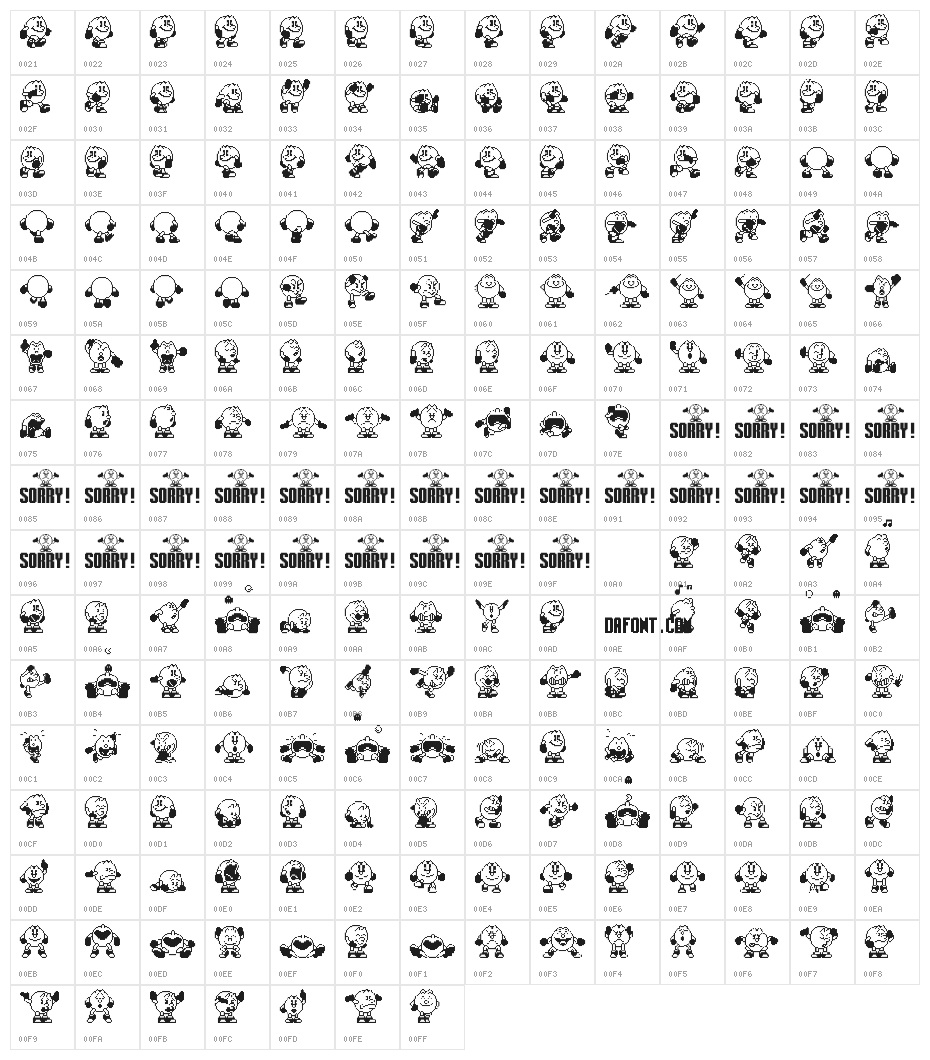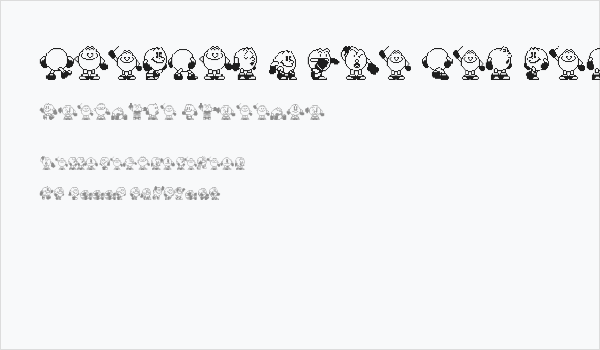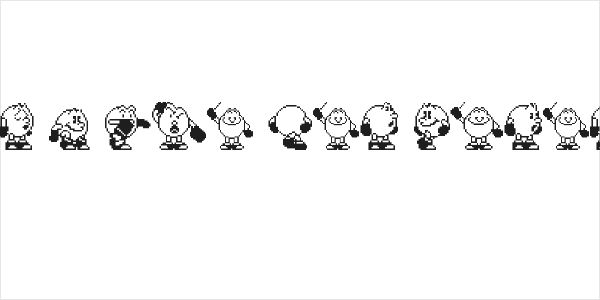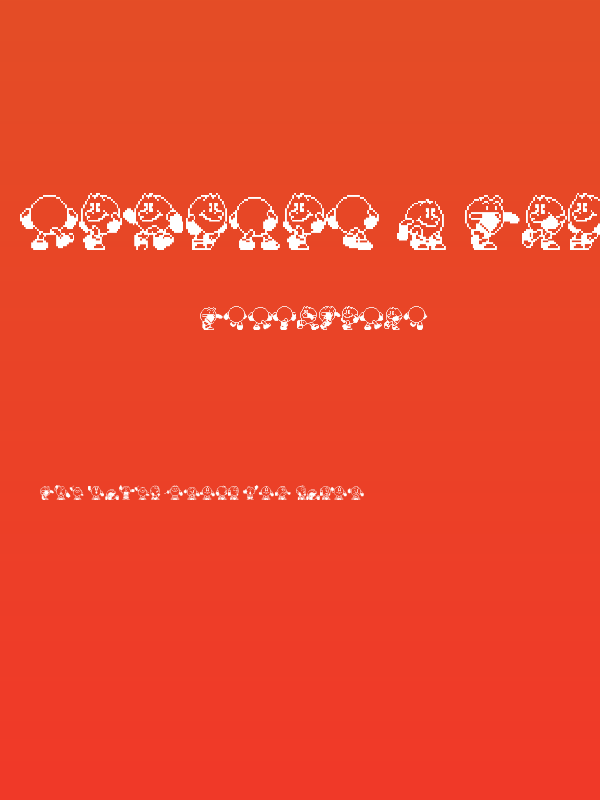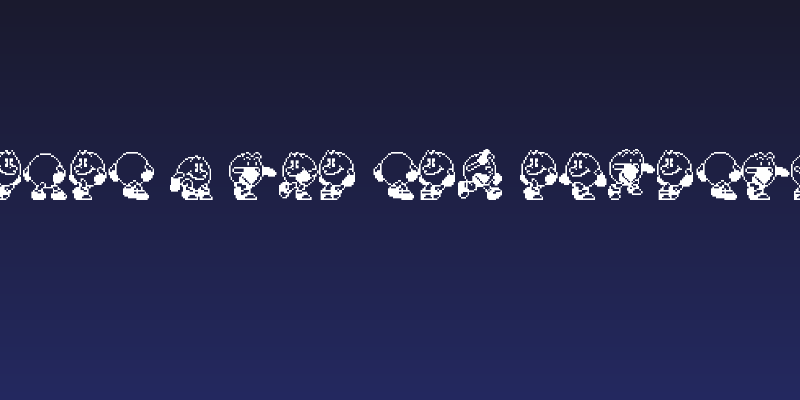
Pac-Man 2 The New Adventures Font
Pac-Man 2 The New Adventures Description
| Overall Style | Retro, Pixel Art, Video Game |
| Use Case | Video game sprites, digital animations, retro-themed designs |
| Proposed Projects | Retro video games, pixel art animations, nostalgic digital art projects, game character design. |